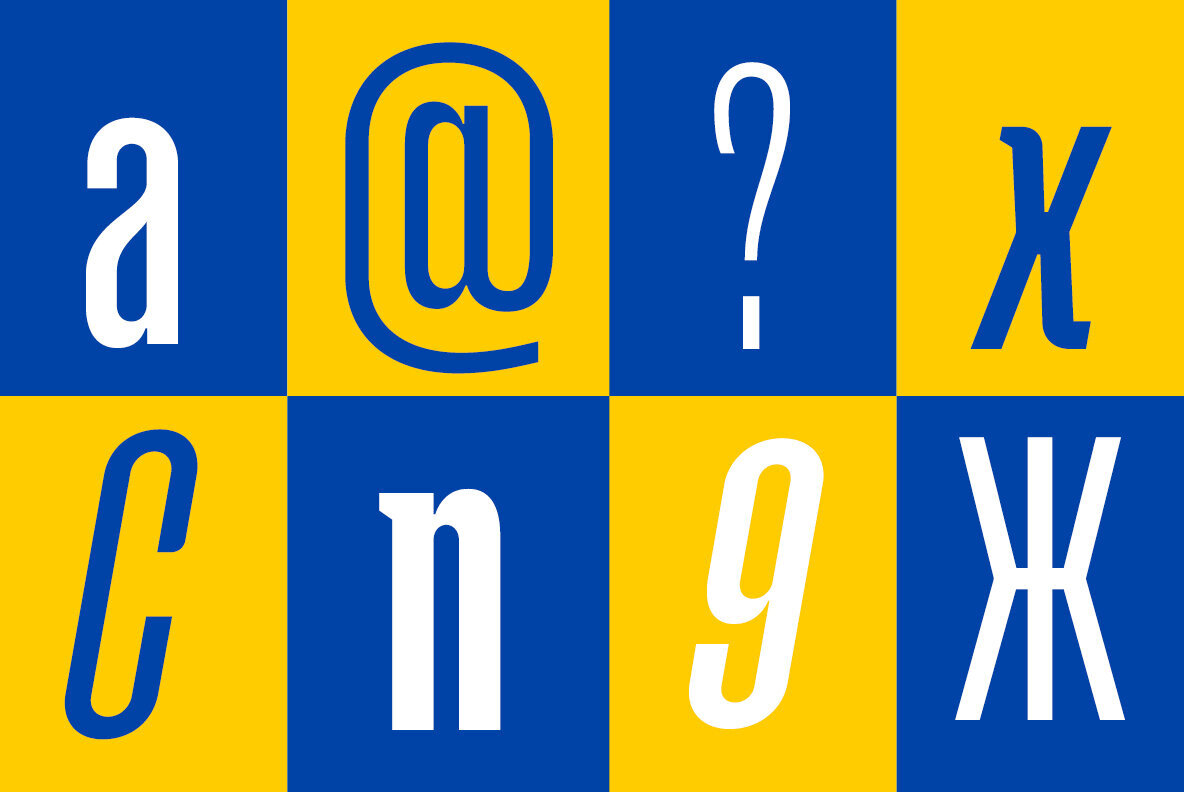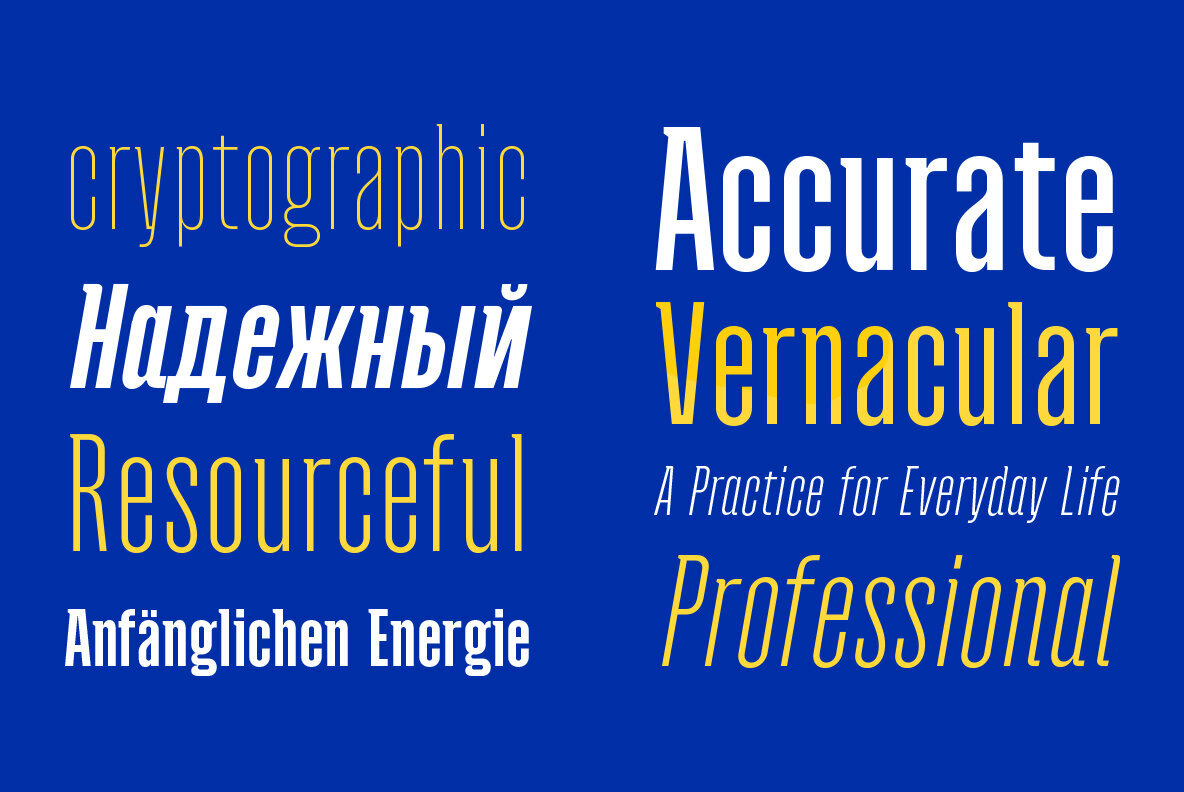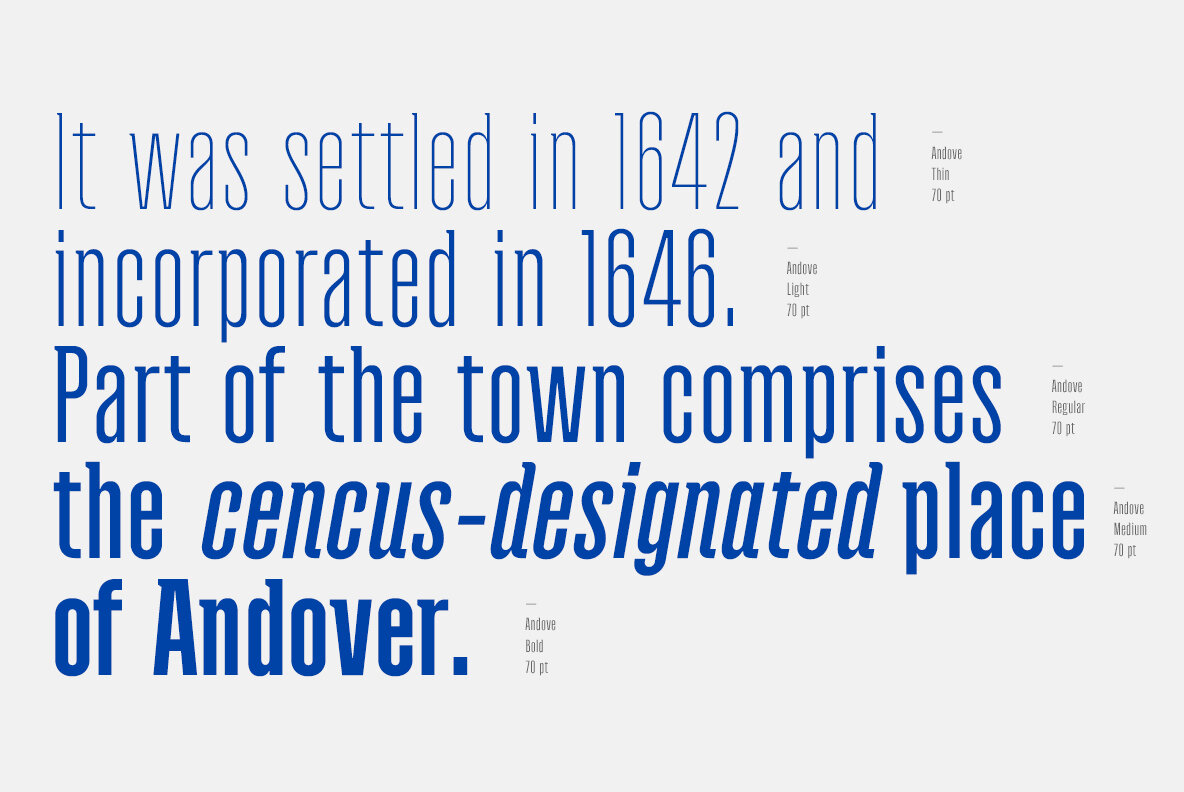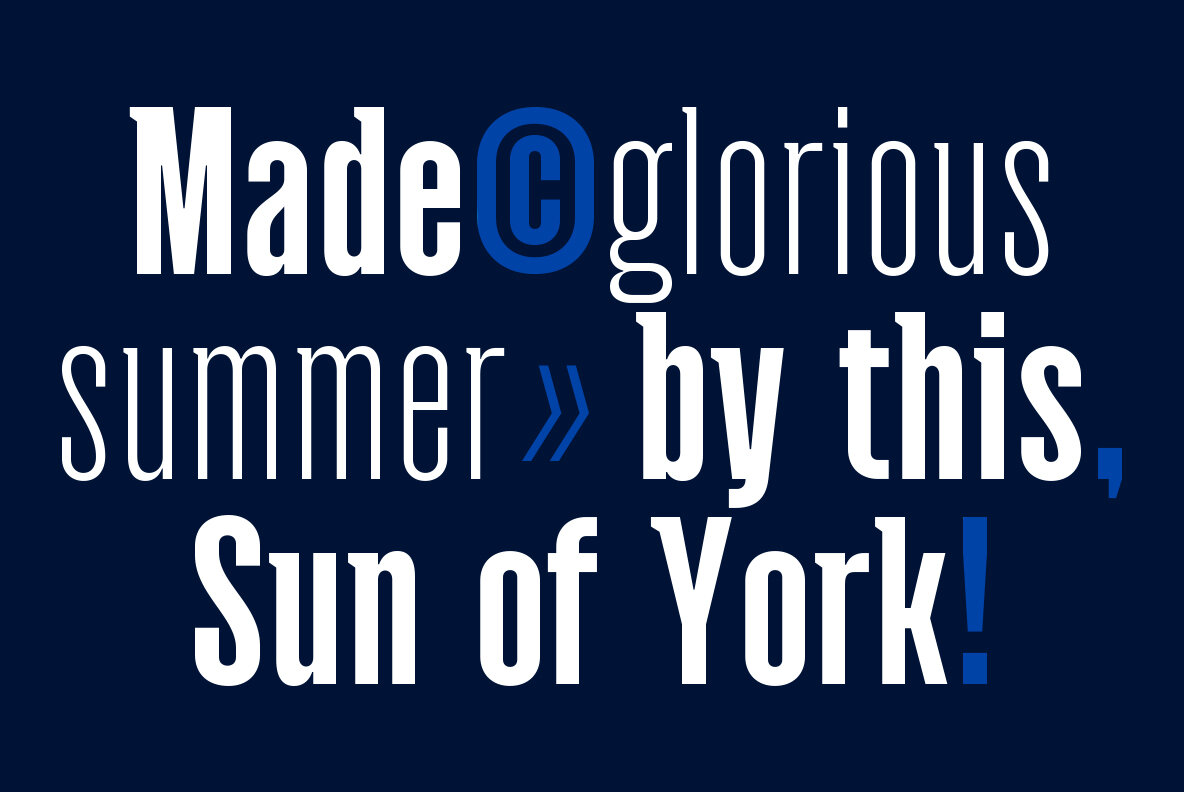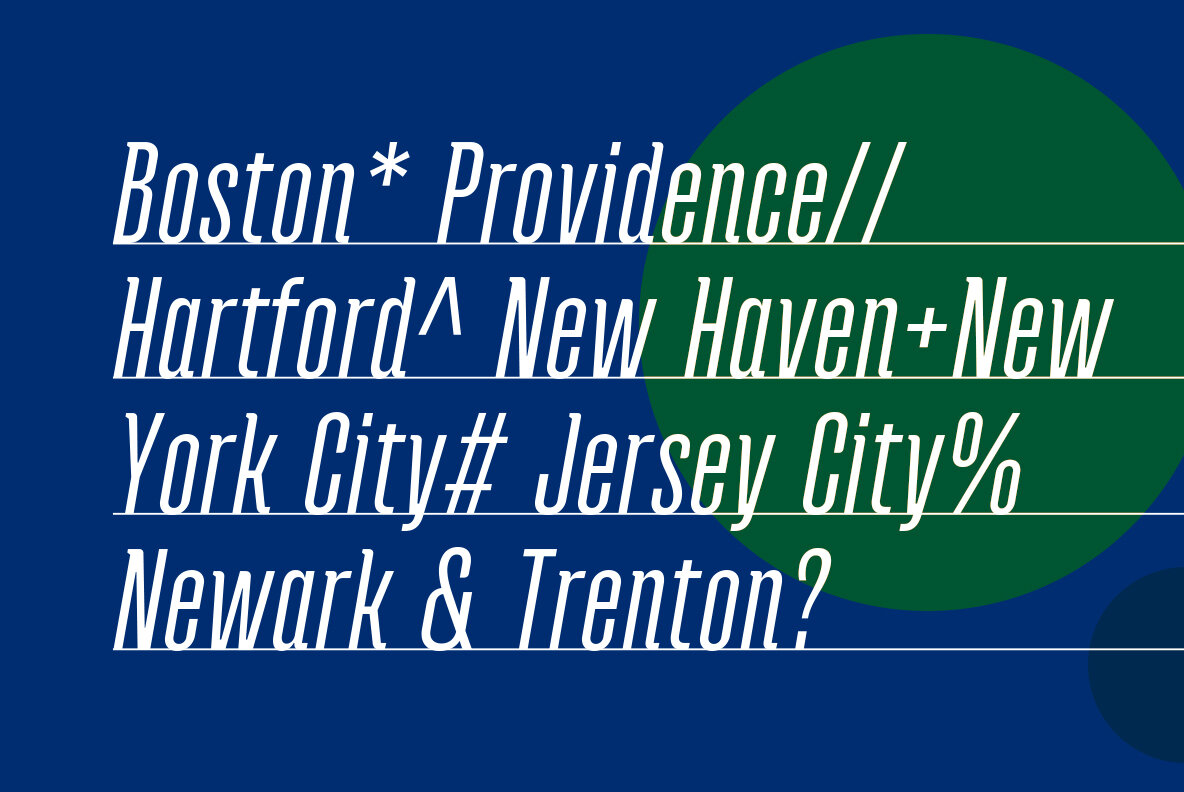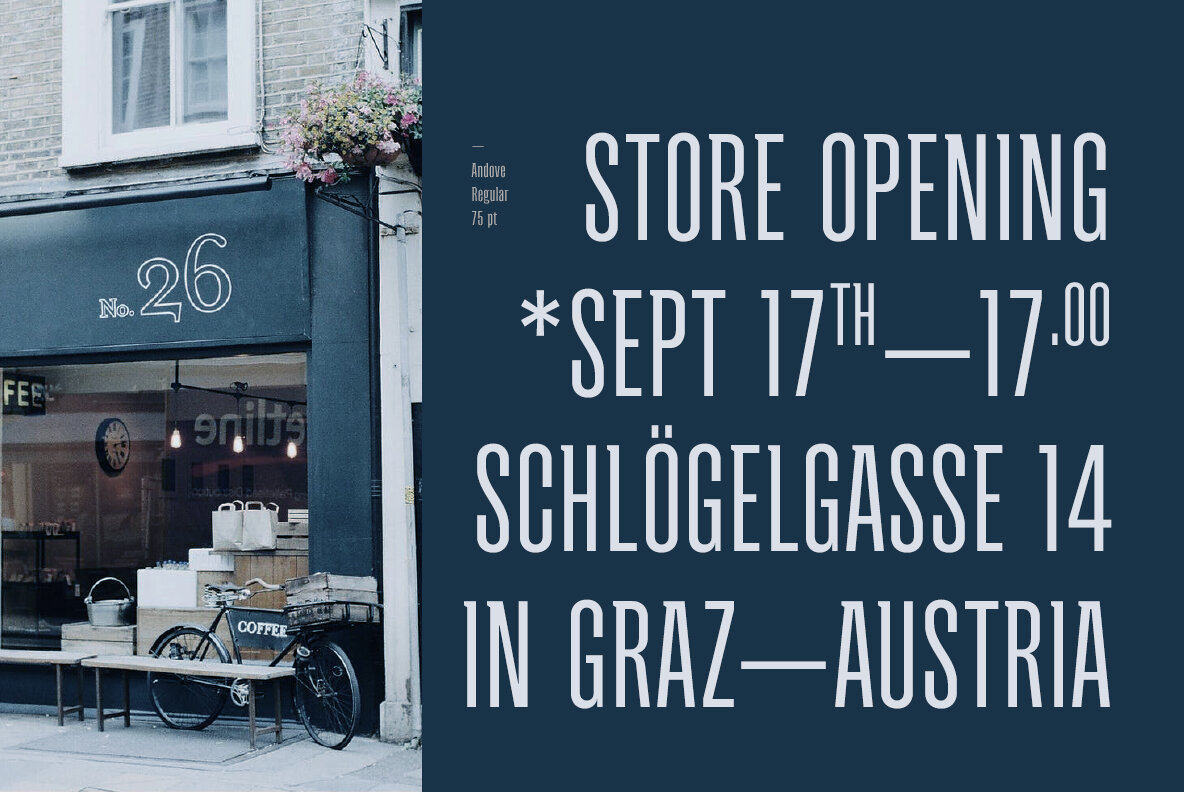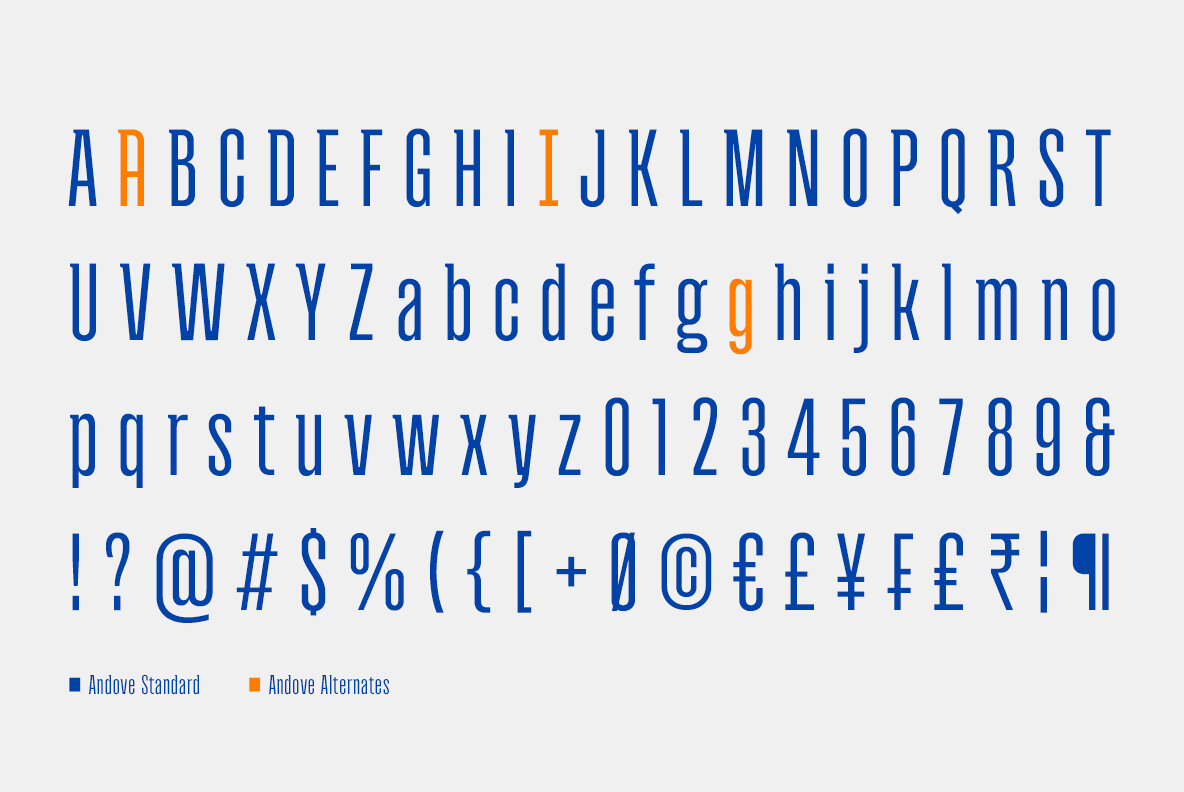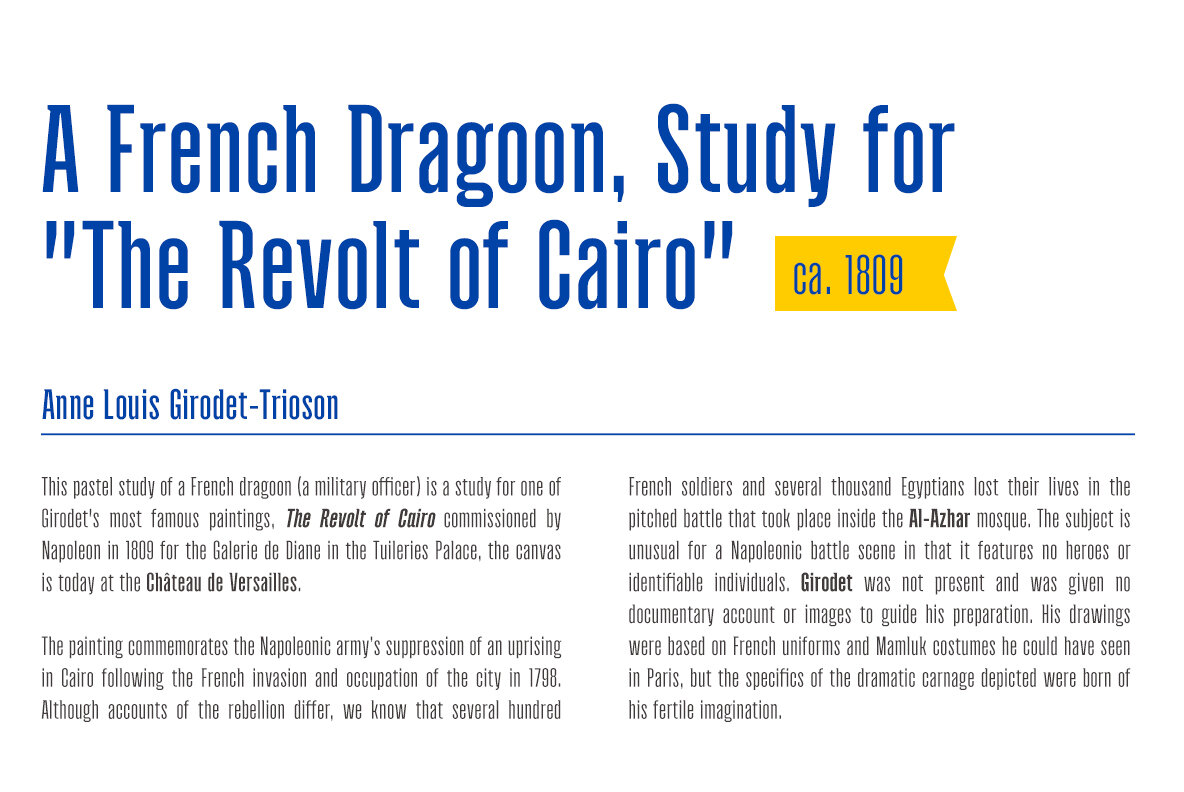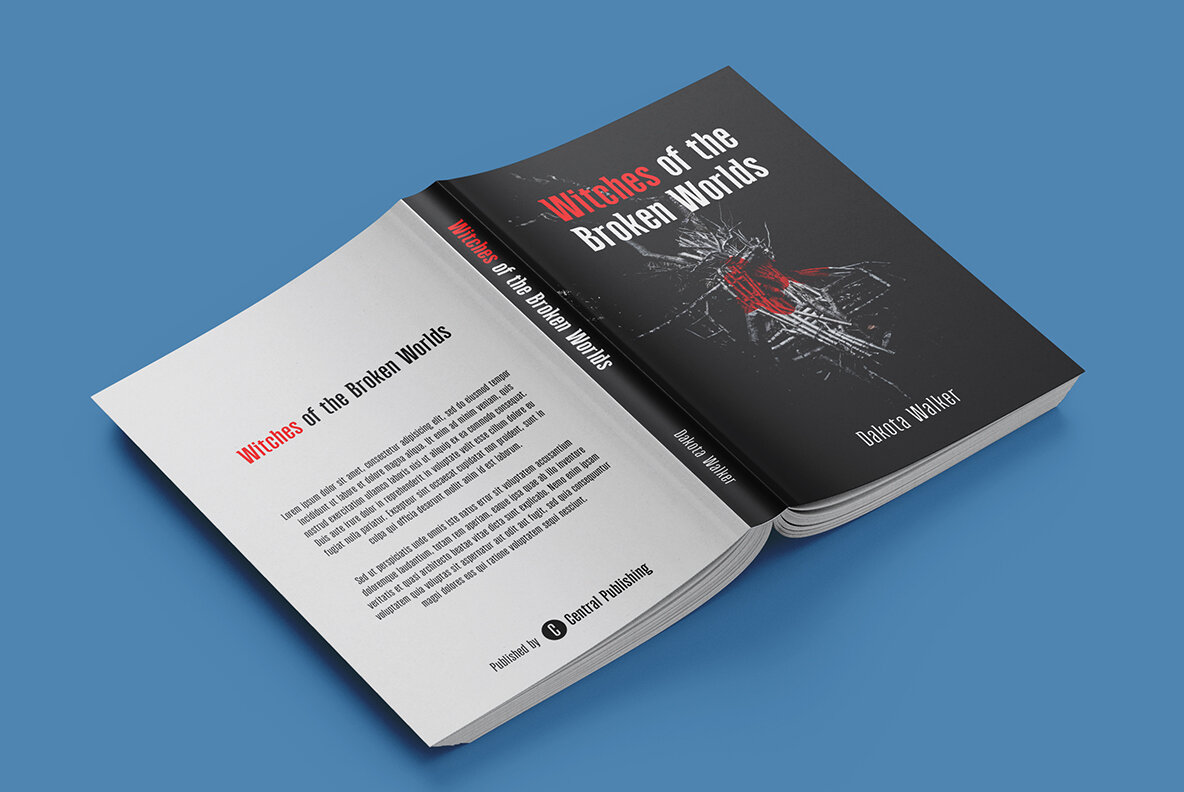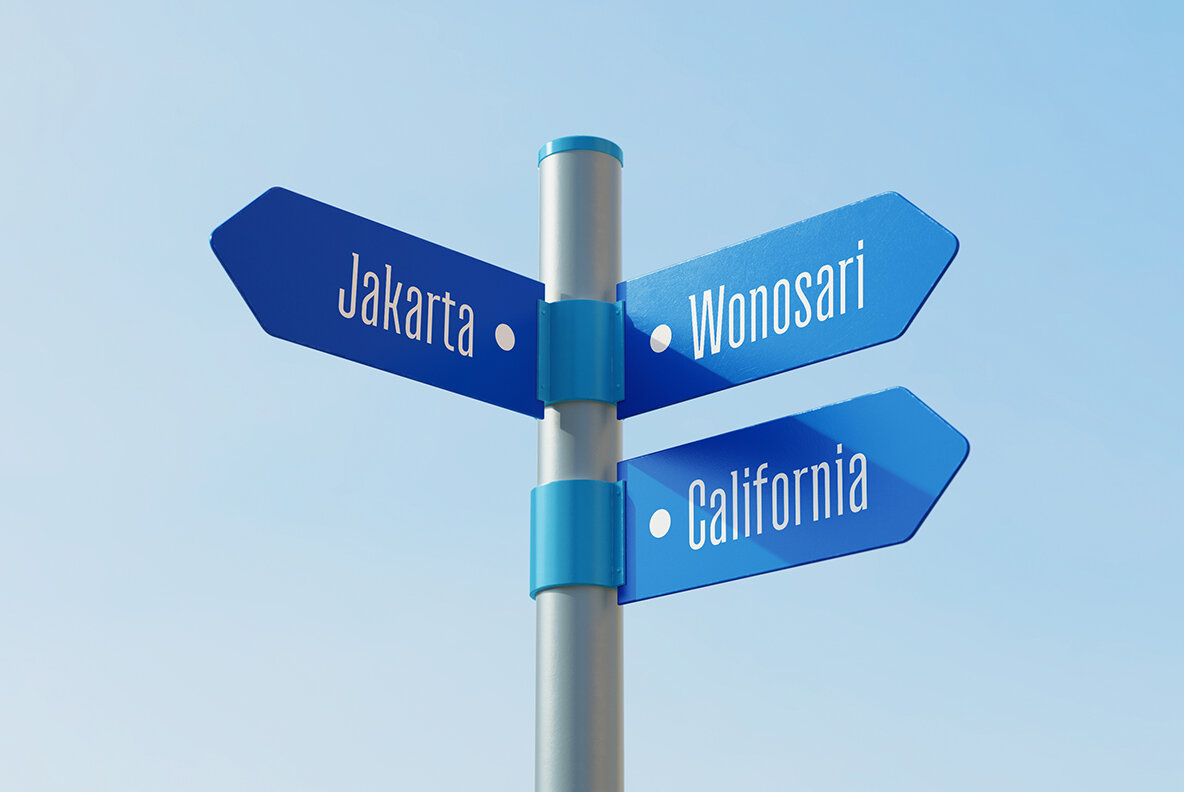
Andove is a narrow sans font with very tight compression. With a slim character and a fairly large x-height, Andove looks great for very large and eye-catching typesettings.
The one-sided serif in ascenders makes this font very unique and stands out to show it is sporty and strong enough. What's even more interesting is Andove has a true italic on each weight so it can be an option for really big headlines and poster title.
Andove consists of 10 styles in six weights — Thin to Bold — Upright and True Italics and comes with extended language support including Cyrillic.